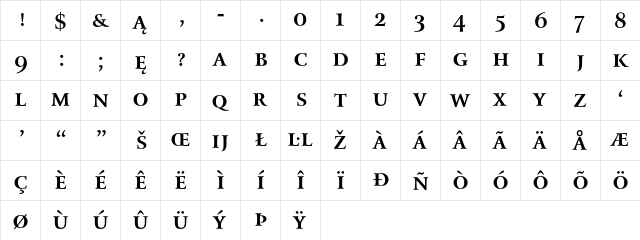
Bitstream Arrus Bold Small Cap
Design Context for Bitstream Arrus Typeface
Bitstream Arrus takes a measured approach to typography — its balanced proportions and neutral character make it a reliable workhorse for both digital and print work. Its bold stroke weight gives it real presence on the page.